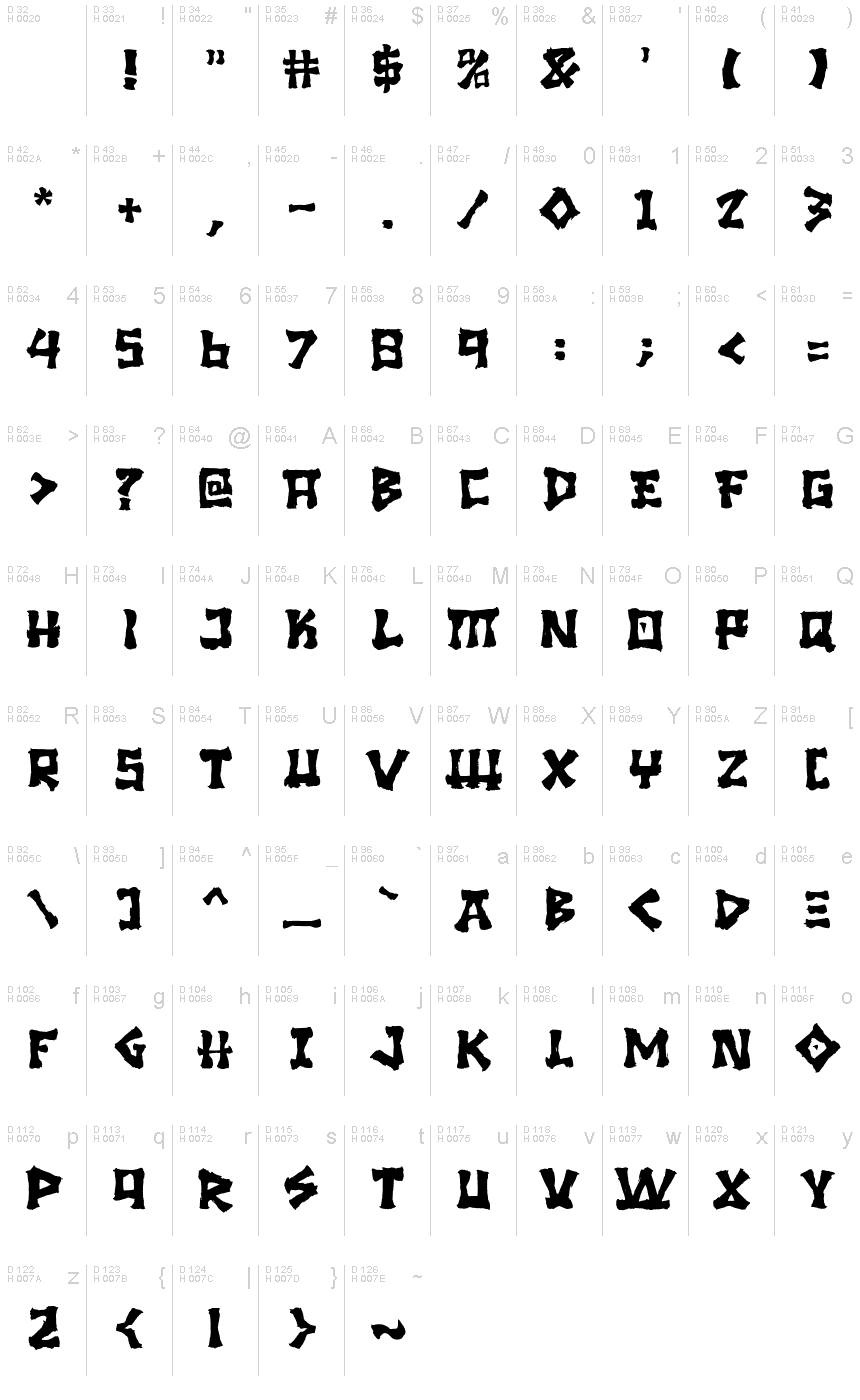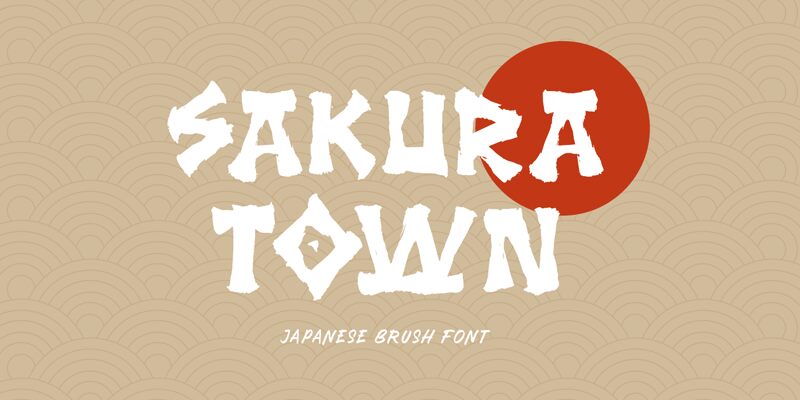
SakuraTownDemo
Sakura Town, the latest creation by Letterhend Studio, is a stunning display font that will add a touch of elegance to any design project. Inspired by Japanese brush calligraphy, this extra-bold typeface features semi-expanded width to create a distinctive look. Perfect for branding projects, packaging design, book covers and more - Sakura Town will make your designs stand out with its unique style and bold presence. Its elegance and sophistication make it suitable for high-end fashion brands and luxury product packaging while its playful brush strokes make it perfect for kid's products or restaurant menus. The possibilities are endless with Sakura Town!